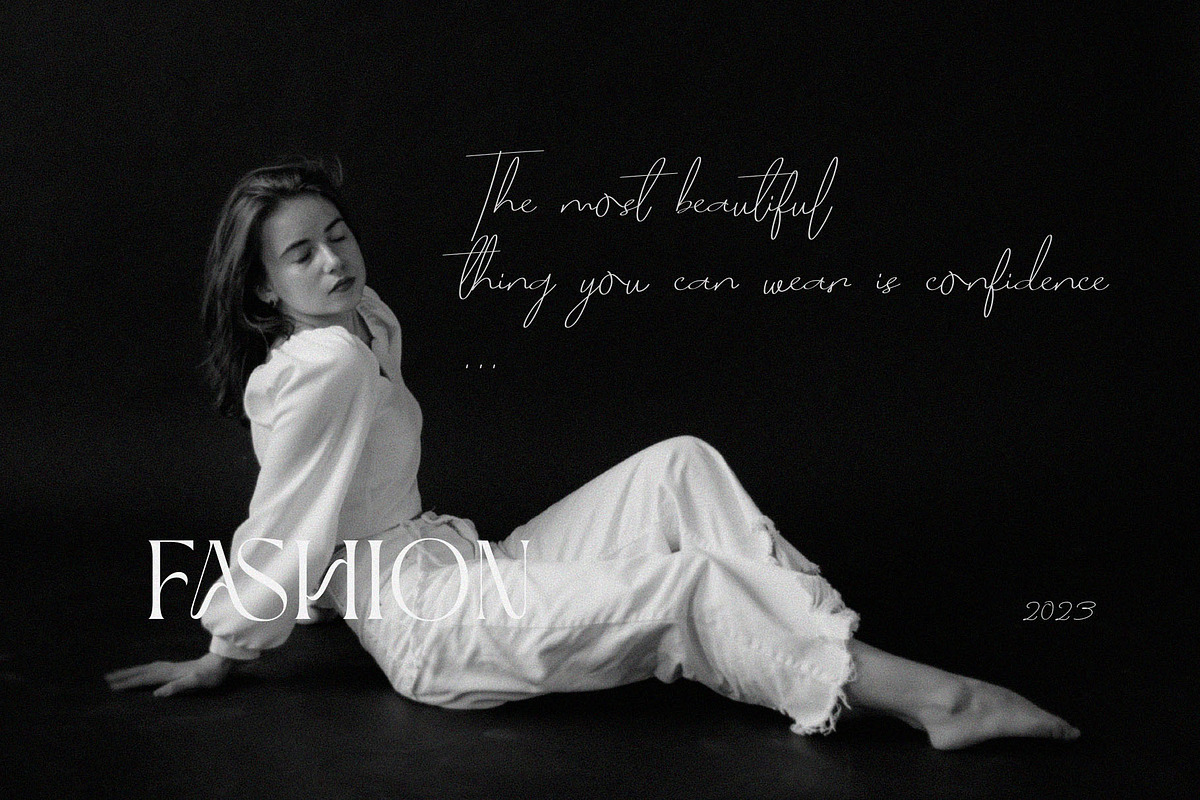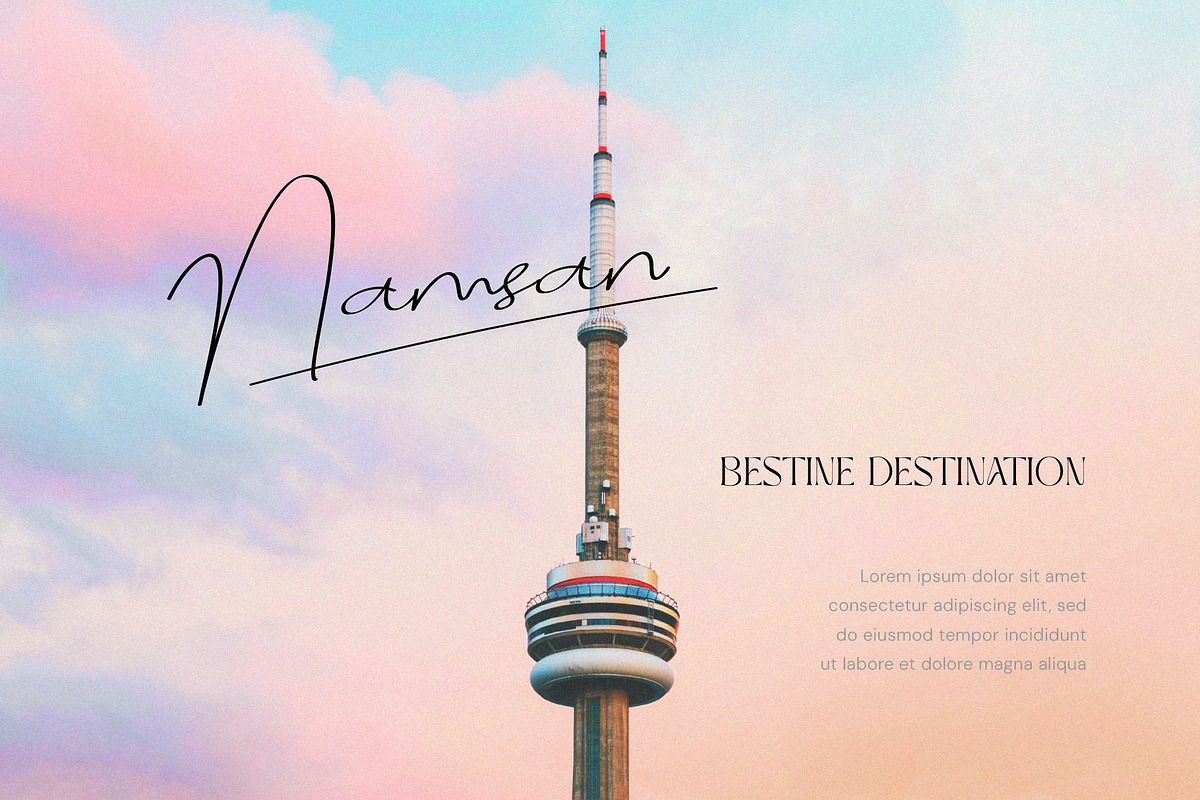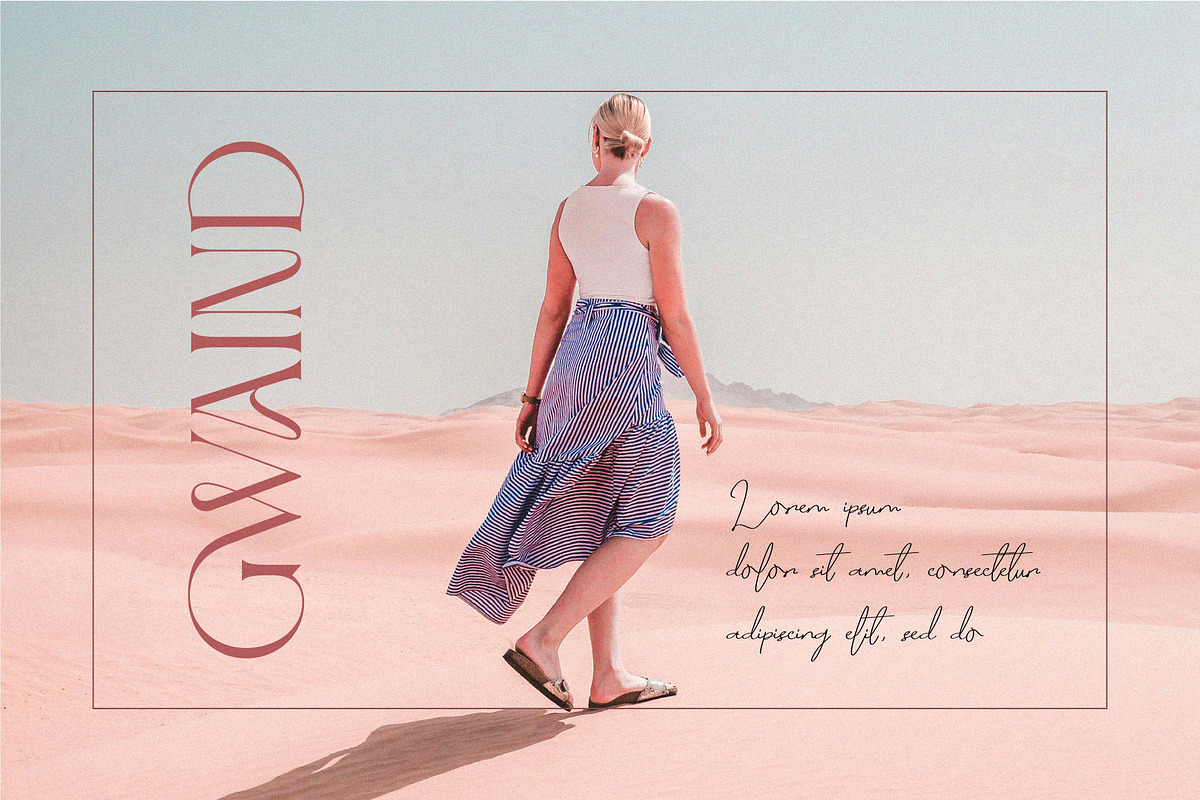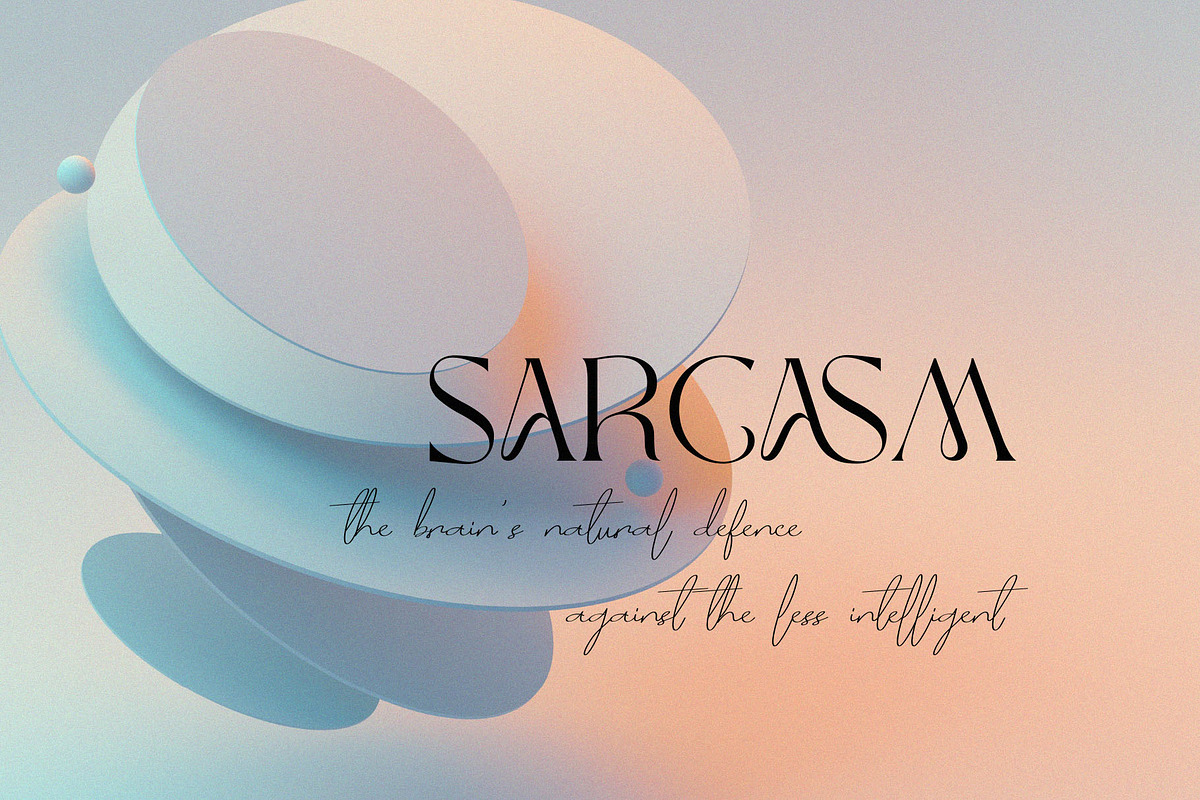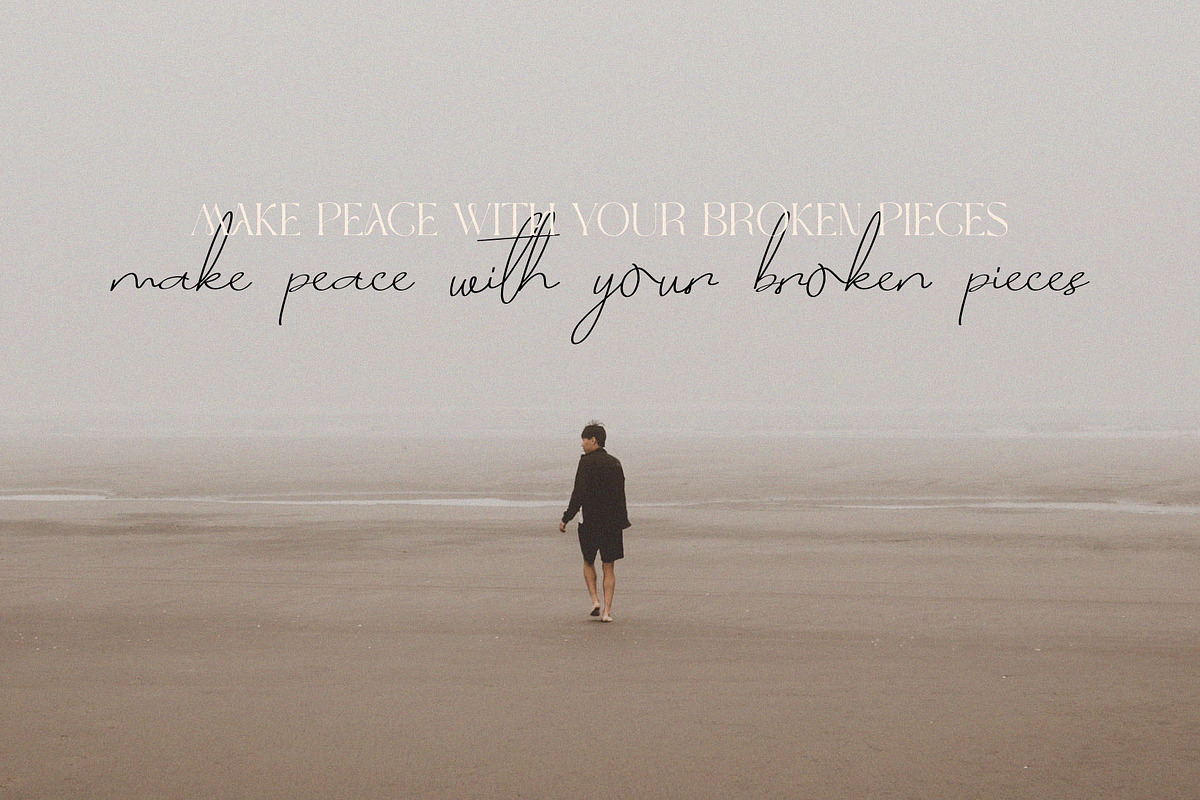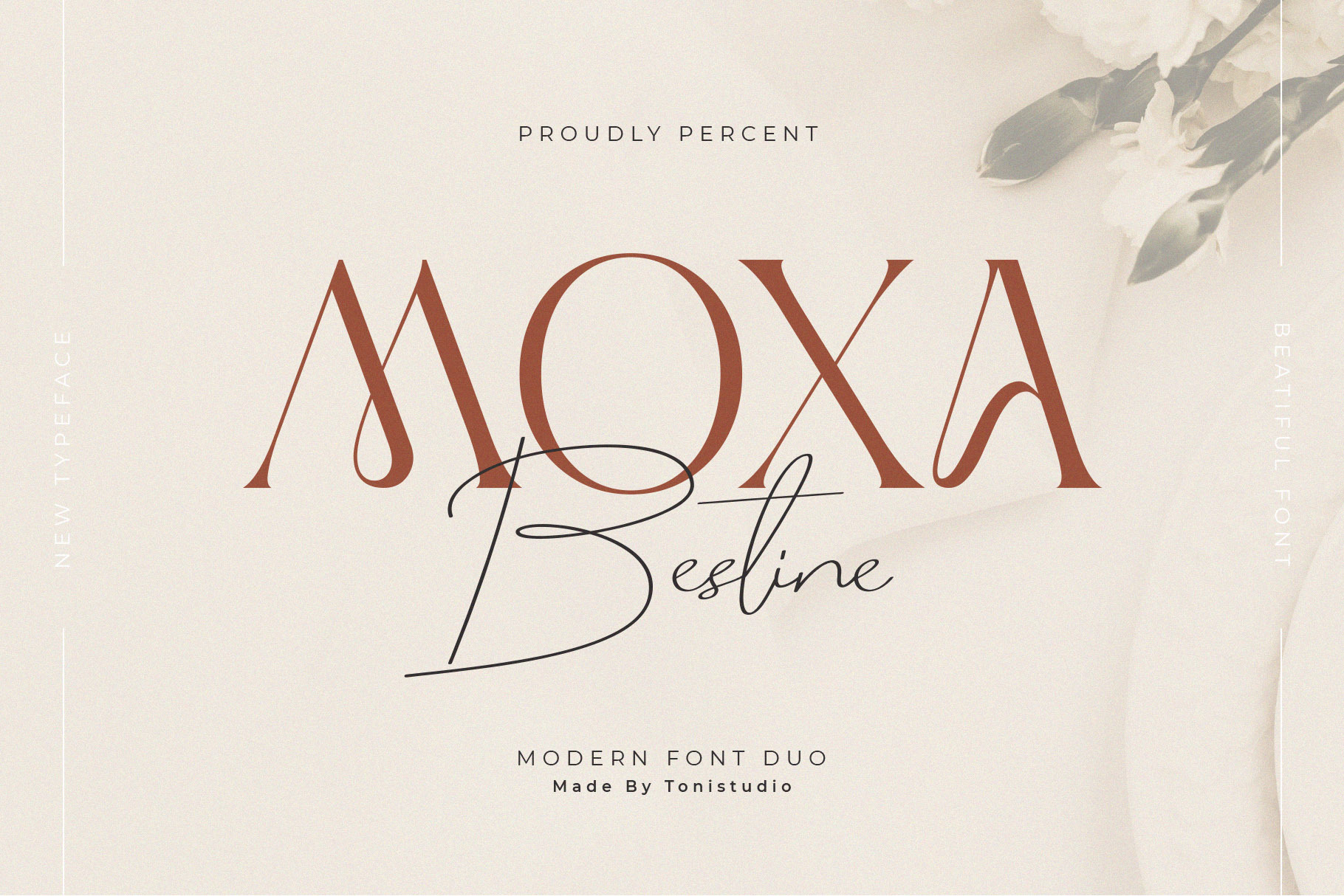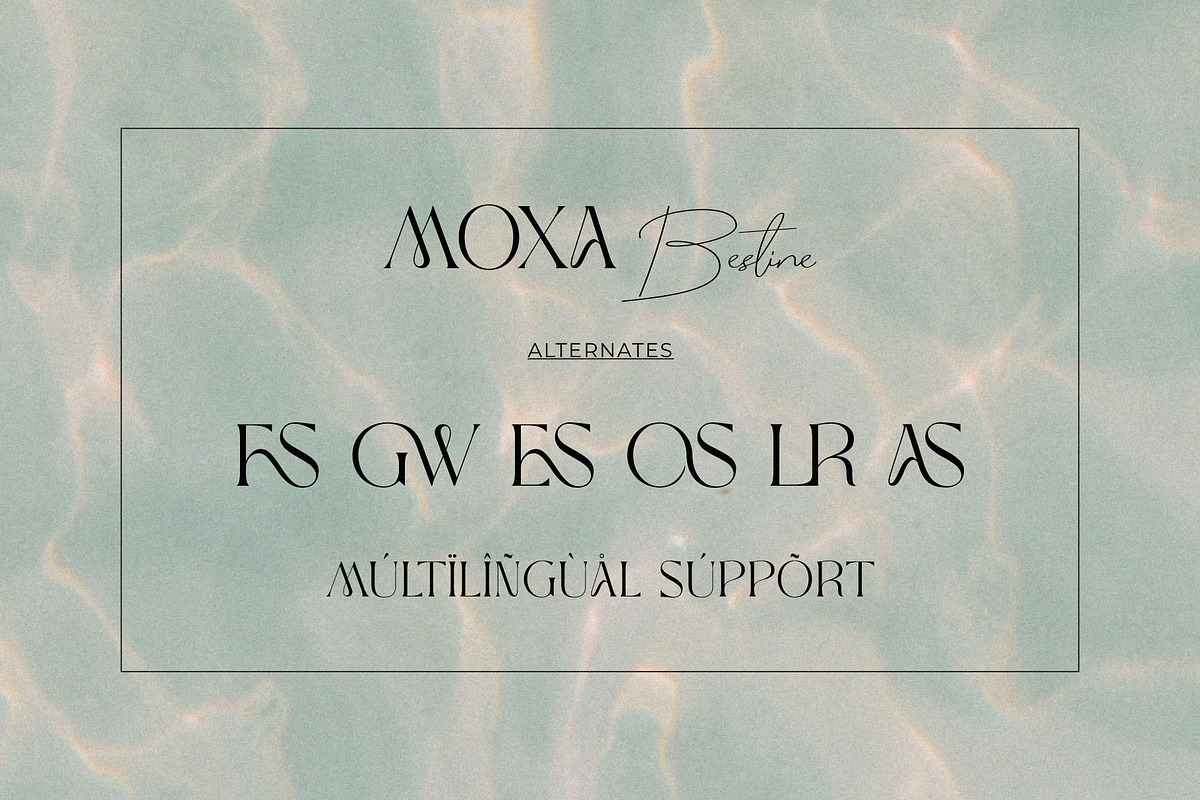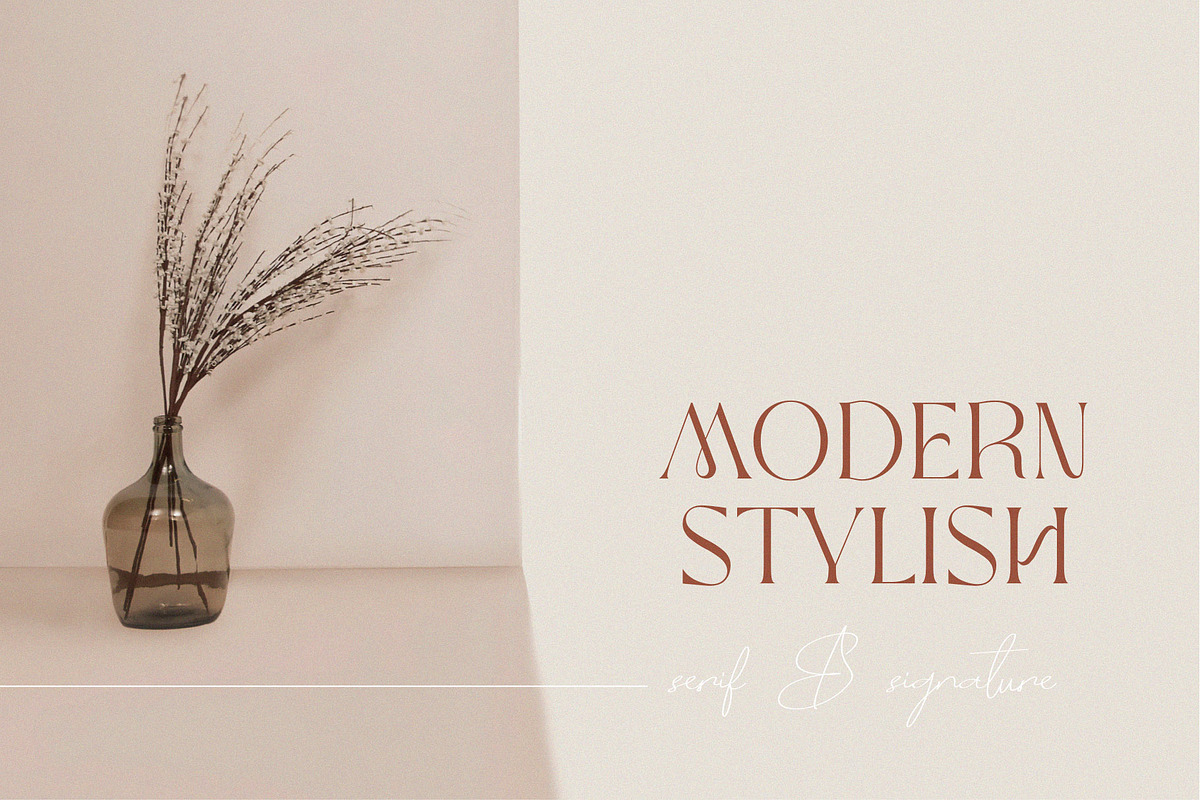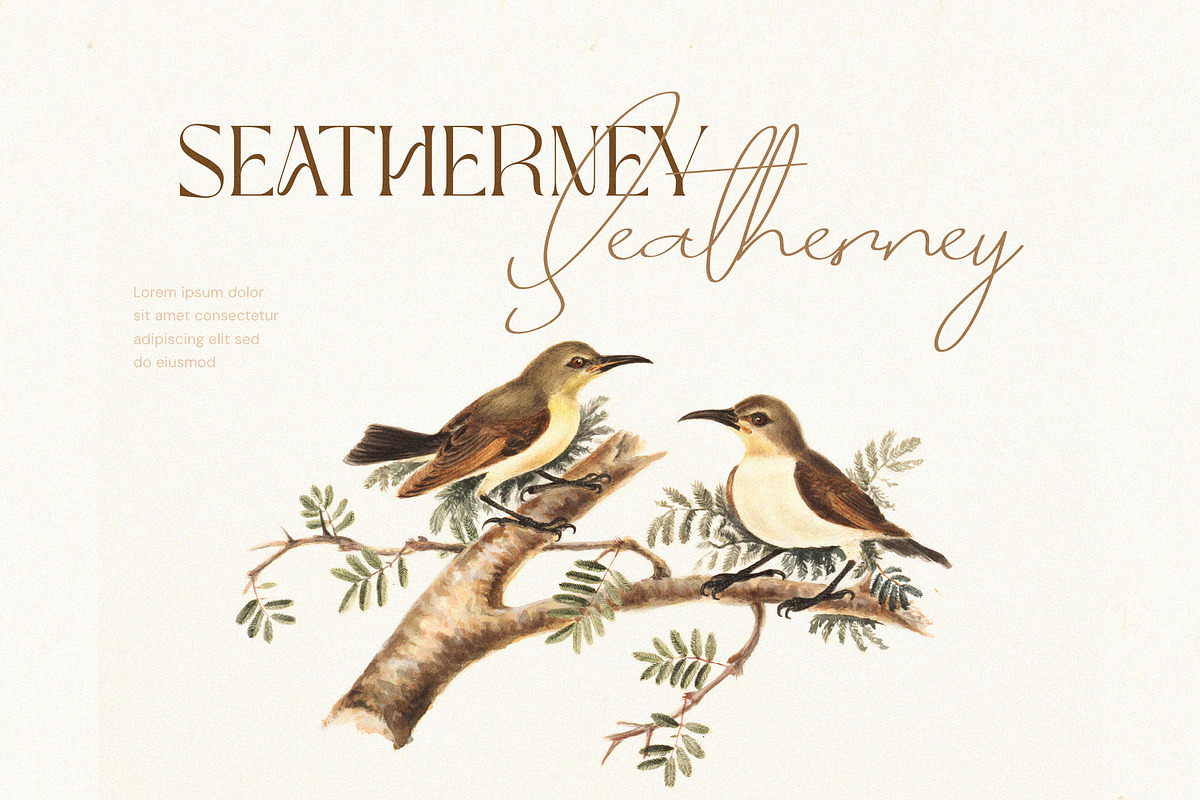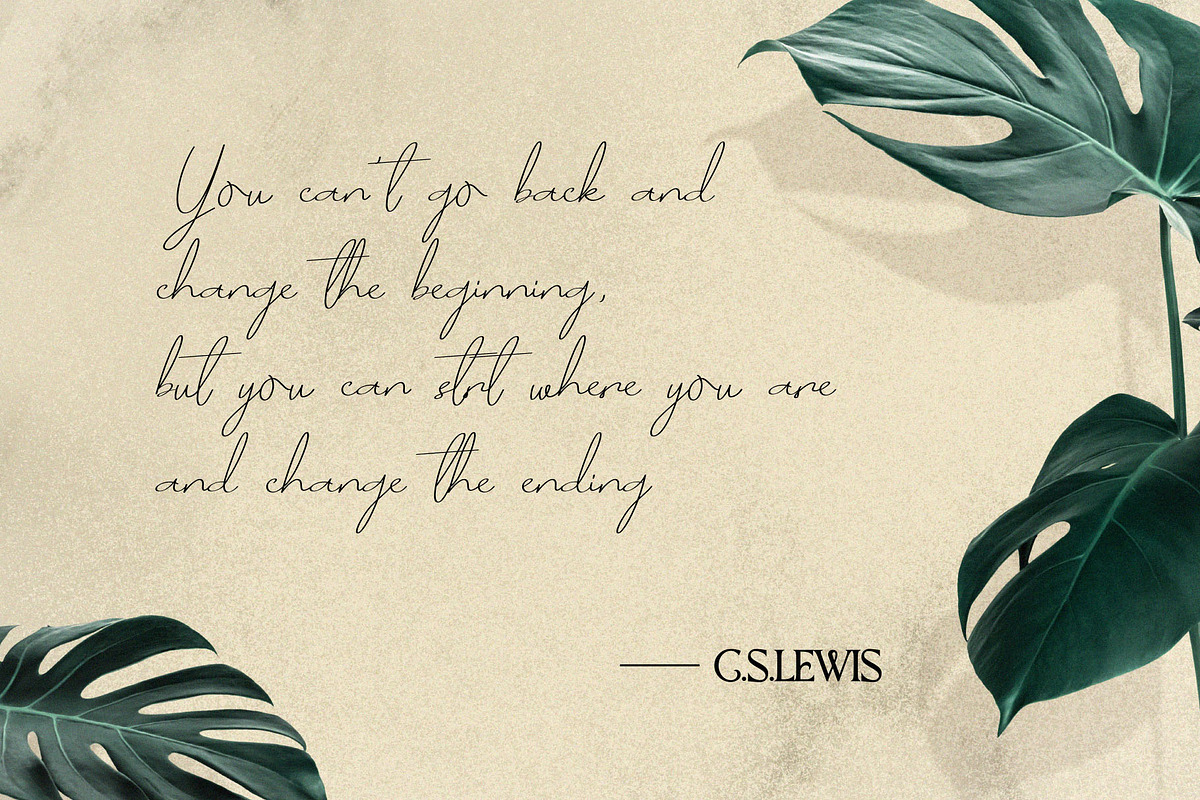
Moxa Bestine-Modern Decorative font
Introduce "Moxa Bestine - Modern Decorative font", is an elegant serif typeface combined with handwritten script that has been modernized with its unique curves and flows. "MOXA Bestine" brings a beautiful, clean style to websites, modern logos, brand identities, social media quotes, wedding stationery and more. This versatile font can also be used for wordmark logos, mastheads, pull quotes & monograms conveying feminine and masculine qualities. This beautiful font will attract your audience and make promotions stand out in your projects,
"MOXA Bestine font duo" is built with OpenType features and includes several ligatures, numbers, punctuation marks, and also supports other languages.